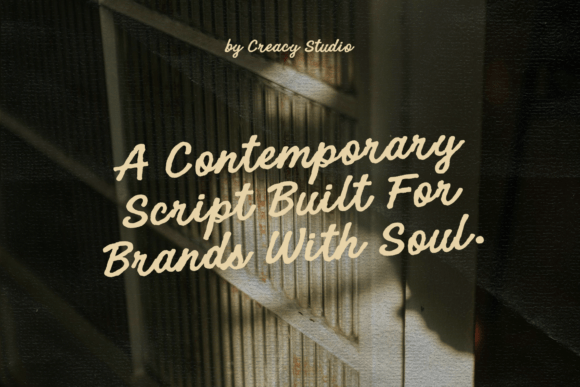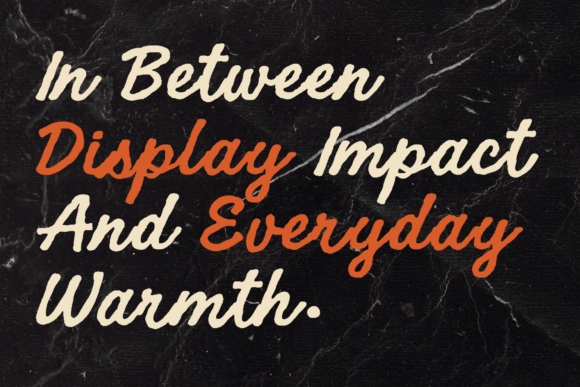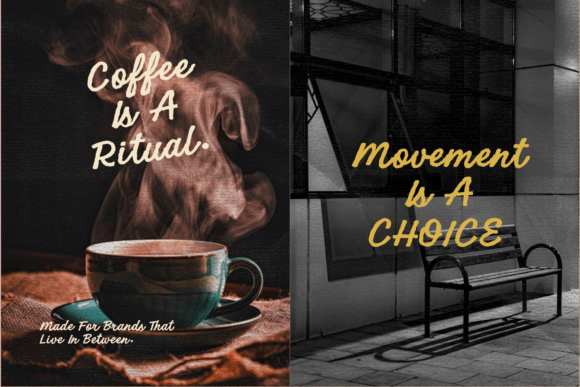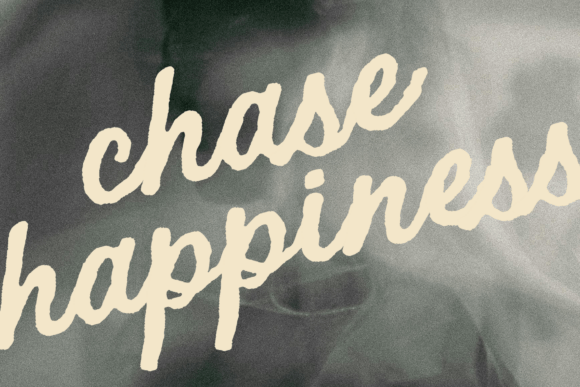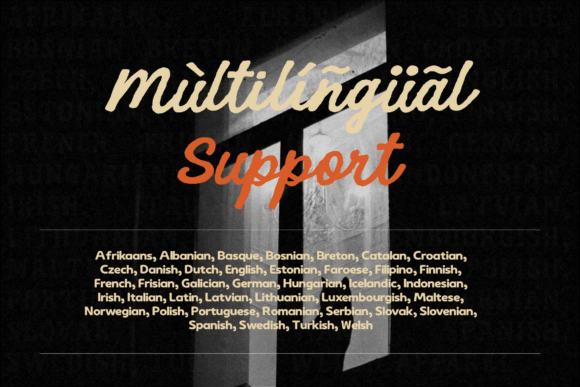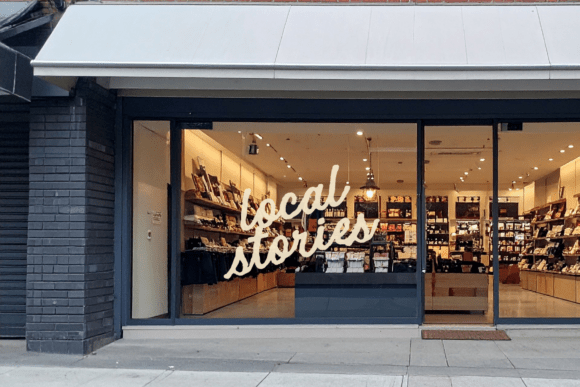
Infuse Your Designs with the Cozy Charm of Casa Lienta Font
Are you tired of using the same old fonts in your designs? Do you want to add a touch of warmth and personality to your projects? Look no further than Casa Lienta, a beautiful lifestyle type duo font that’s perfect for designers and crafters looking to create a cozy, lived-in feel.
What is Casa Lienta Font?
Casa Lienta is a rustic yet elegant font that’s designed to evoke the feeling of a warm and welcoming home. With its unique blend of modern and vintage elements, this font is ideal for a wide range of design projects, from cozy café branding to outdoor adventure gear, rustic product packaging, and lifestyle blog headers.
The Characteristics of Casa Lienta Font
So, what makes Casa Lienta font so special? Here are just a few of its key characteristics:
- Warm and inviting: Casa Lienta font has a warm and inviting feel that’s perfect for creating a cozy atmosphere in your designs.
- Unique and elegant: With its unique blend of modern and vintage elements, Casa Lienta font adds a touch of elegance to any design project.
- Versatile: Whether you’re designing a logo, packaging, or a website, Casa Lienta font is versatile enough to work in a wide range of design projects.
- Easy to read: Despite its unique and elegant design, Casa Lienta font is still easy to read, making it perfect for body text and headlines.
Perfect for Cozy Café Branding
If you’re a café owner or designer looking to create a warm and welcoming brand, Casa Lienta font is the perfect choice. Its cozy and inviting feel is perfect for creating a brand that makes customers feel like they’re coming home.
Imagine using Casa Lienta font on your café’s menu boards, napkins, and packaging. The font’s warm and elegant design will make your brand stand out and create a lasting impression on your customers.
Ideal for Outdoor Adventure Gear
But Casa Lienta font isn’t just limited to café branding. It’s also perfect for outdoor adventure gear, such as hiking boots, camping equipment, and outdoor apparel.
The font’s rustic and adventurous feel is perfect for creating a brand that evokes the great outdoors. And with its easy-to-read design, Casa Lienta font is perfect for creating clear and concise labels and packaging.
Rustic Product Packaging
Casa Lienta font is also ideal for rustic product packaging, such as artisanal foods, handmade crafts, and home decor items.
The font’s warm and inviting feel is perfect for creating a brand that feels like a warm hug. And with its unique and elegant design, Casa Lienta font will make your products stand out on store shelves.
Lifestyle Blog Headers
Finally, Casa Lienta font is perfect for lifestyle blog headers, where you want to create a warm and inviting atmosphere for your readers.
The font’s easy-to-read design and elegant feel make it perfect for creating clear and concise headlines that draw readers in. And with its versatile design, Casa Lienta font will work perfectly with a wide range of blog topics, from lifestyle and fashion to travel and food.
In conclusion, Casa Lienta font is a beautiful and versatile font that’s perfect for designers and crafters looking to add a touch of warmth and personality to their projects.
Whether you’re creating a cozy café brand, outdoor adventure gear, rustic product packaging, or lifestyle blog headers, Casa Lienta font is the perfect choice. So why not give it a try and see how it can bring a sense of home and adventure to your next project?